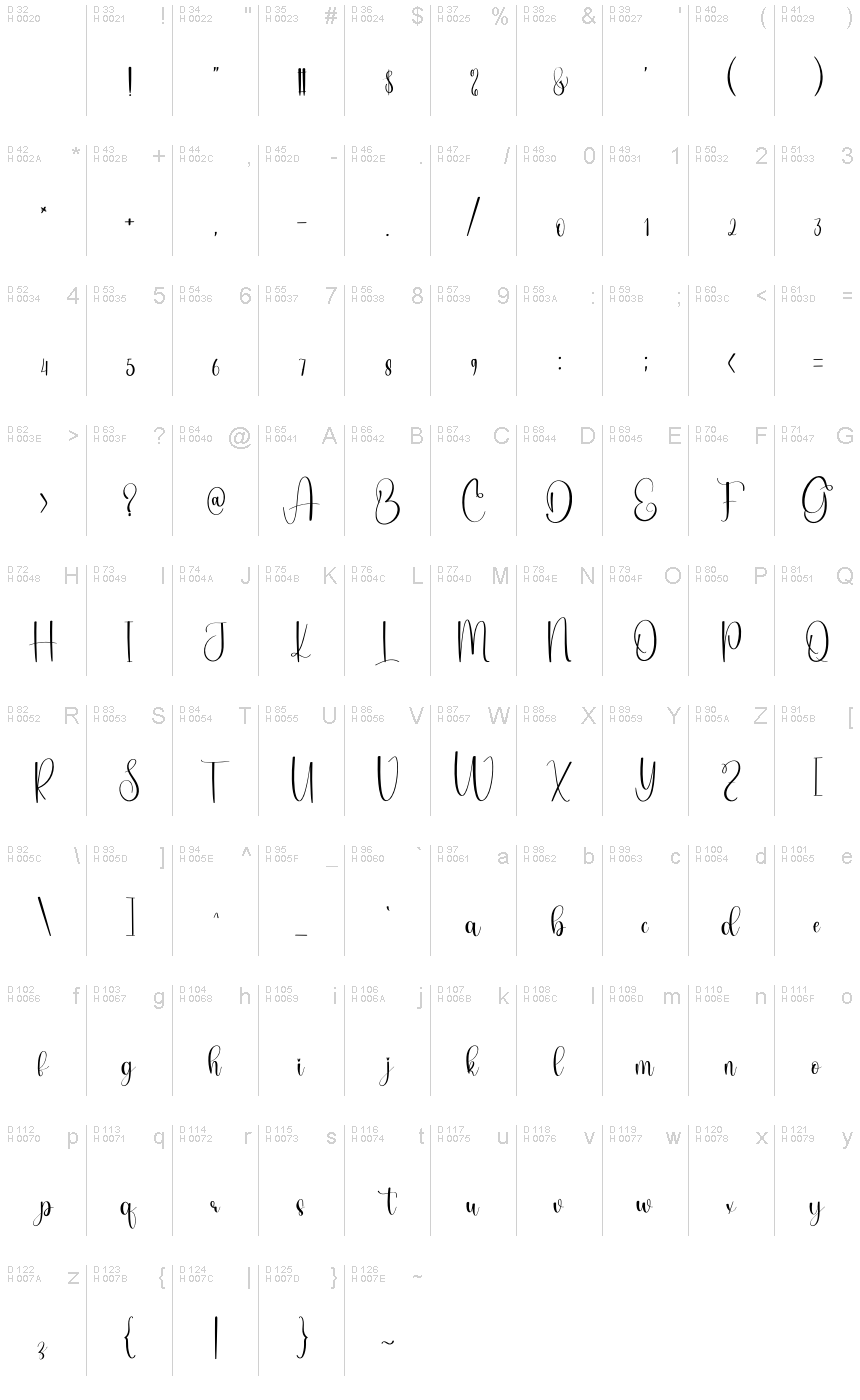
Aila
Aila, crafted by PiPi Creative, is a handwritten font that exudes a semi-light weight and semi-condensed width, creating an effortlessly elegant aesthetic. Its fluid lines and personal touch offer a blend of charm and sophistication, making Aila an exquisite choice for designers seeking to inject warmth and authenticity into their projects.
The font's distinct style boasts versatility across various creative endeavors. Whether adorning wedding invitations with its romantic allure or adding a handcrafted feel to branding materials, Aila's stylish appearance resonates with audiences desiring that bespoke essence. Embrace the allure of Aila for your next design project and let its unique character speak volumes.